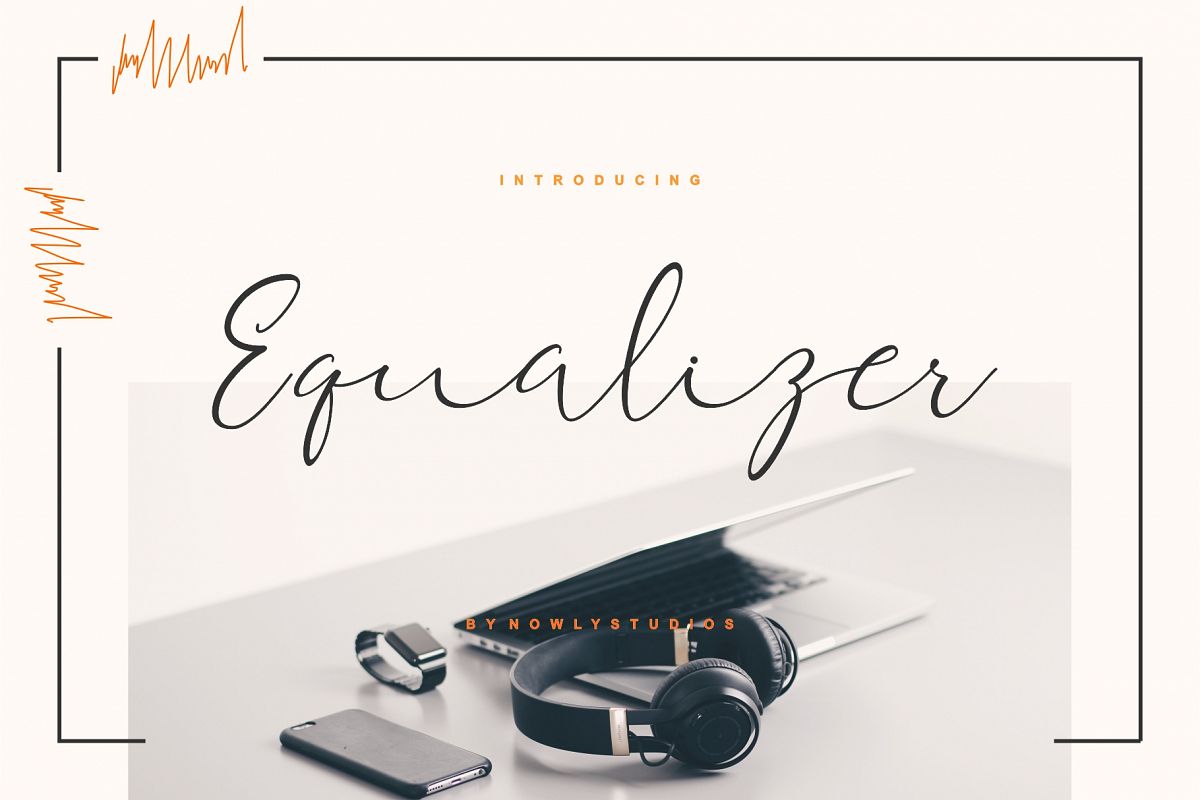
Equalizer Script
Equalizer is a script font. Equalizer is equipped with plenty of OpenType features: To activate the alternates click
The swashes are called alternative glyphs. For example, letter "z" with beginning and ending swashes are